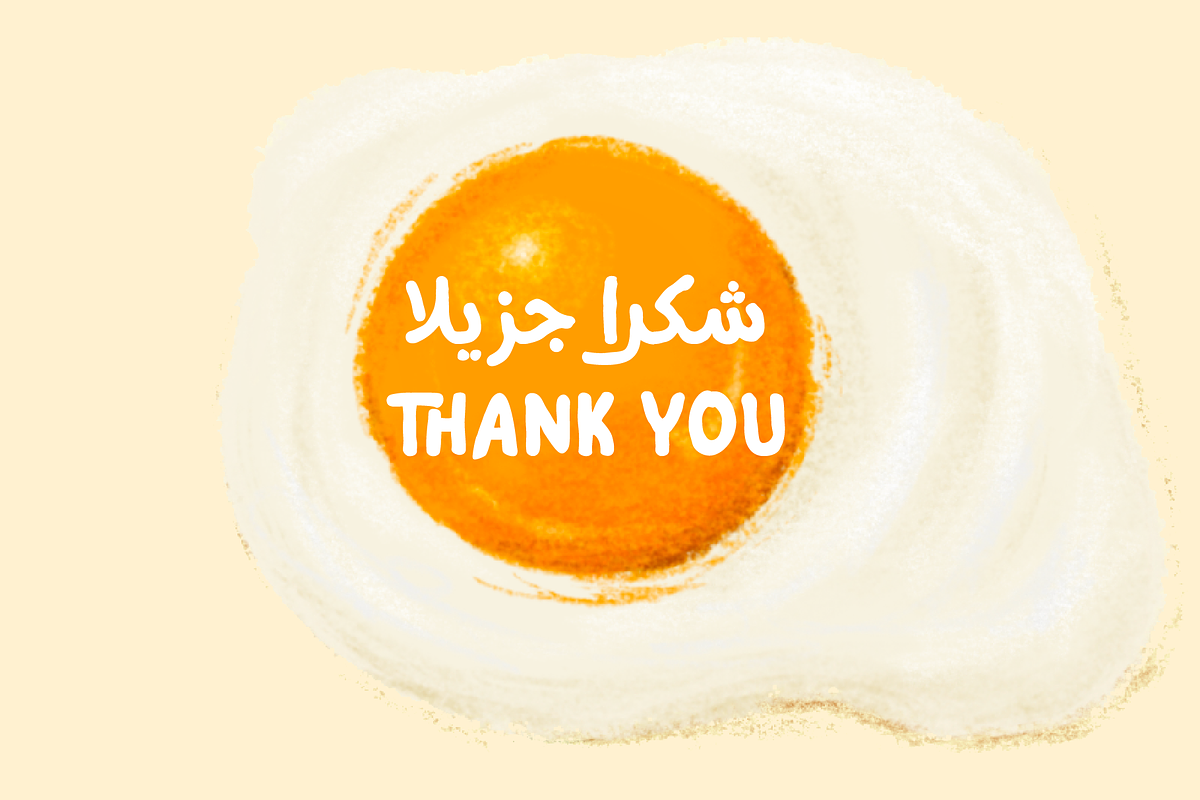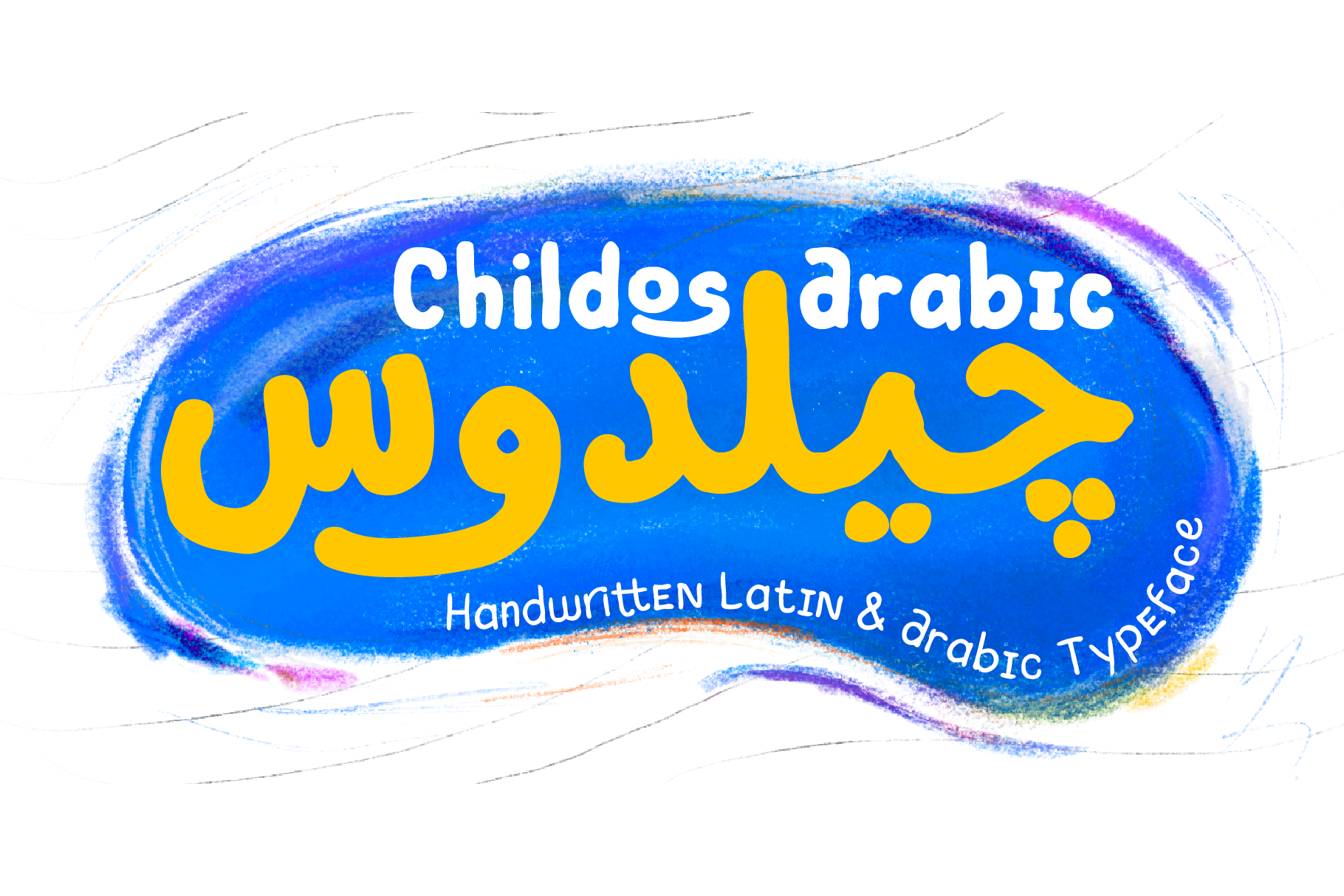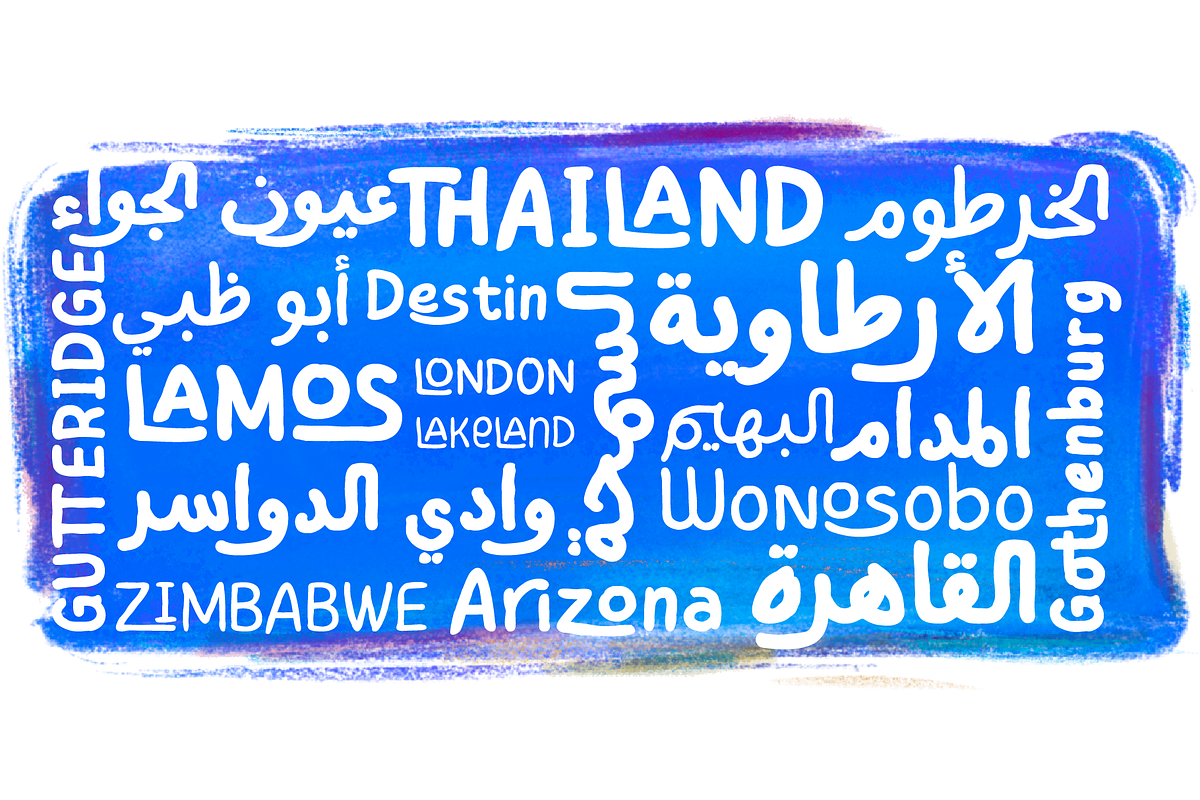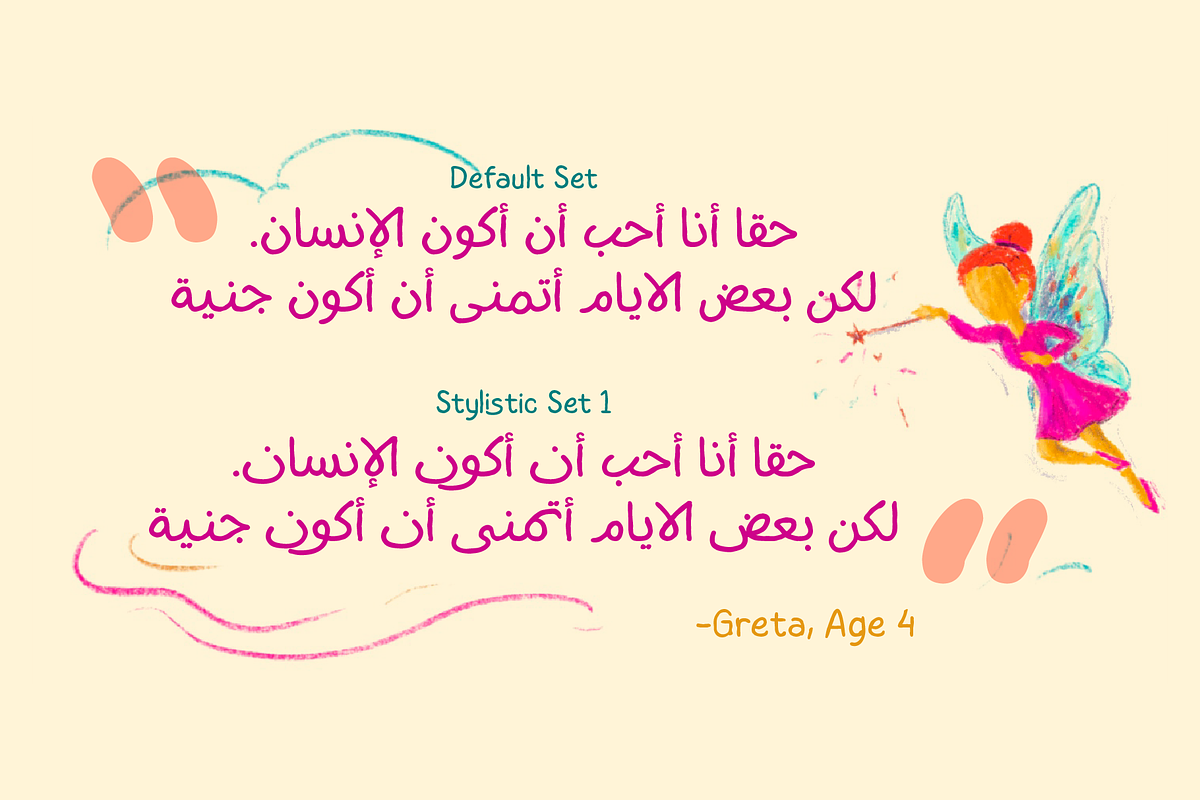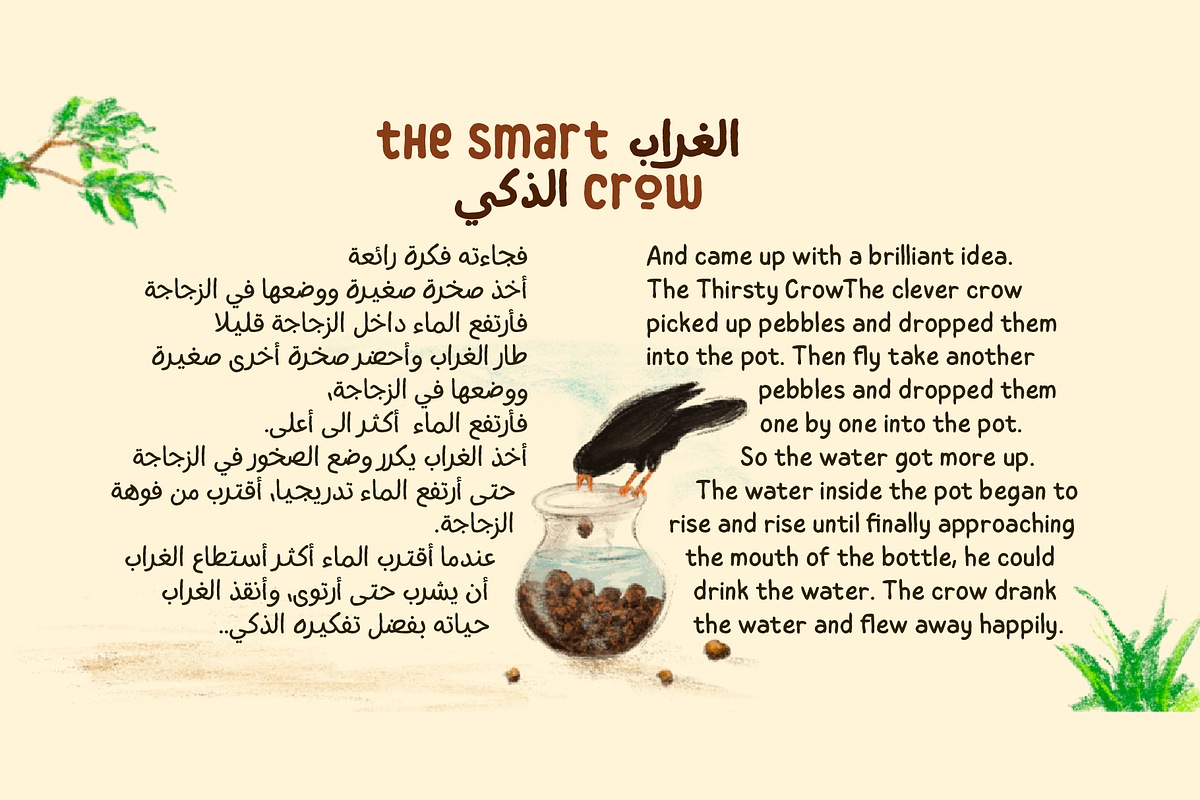
Childos Arabic - Playful font Family
The sibling of Childos, with with additional Arabic glyphs for more international fun. Handwritten font in rounded, rough sans serifs style, as well as the development of free and attractive ligature to fill the space between letters and make playful children feel designs.